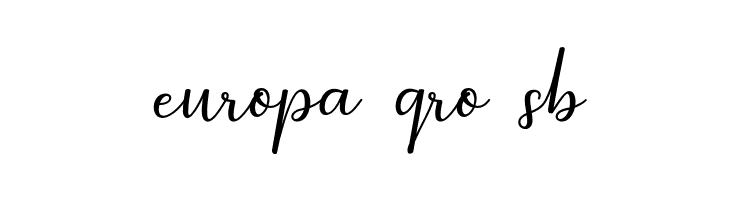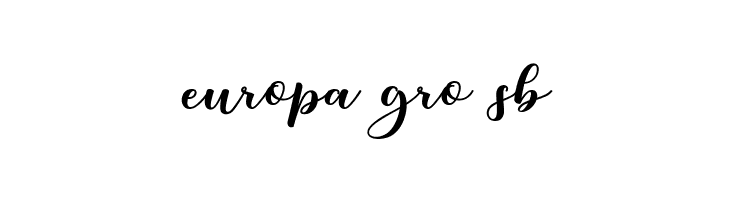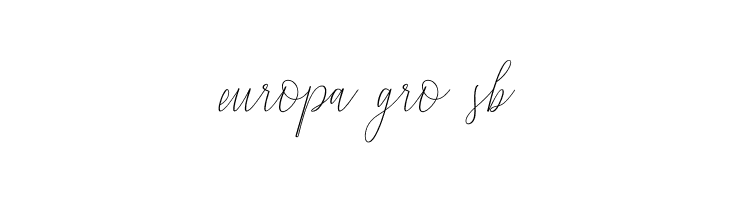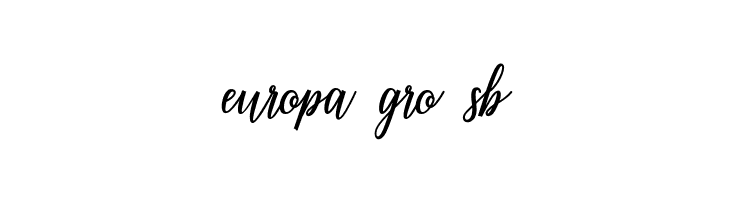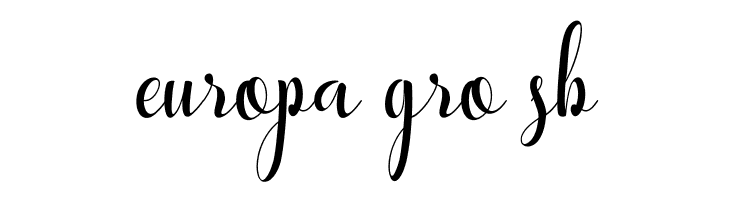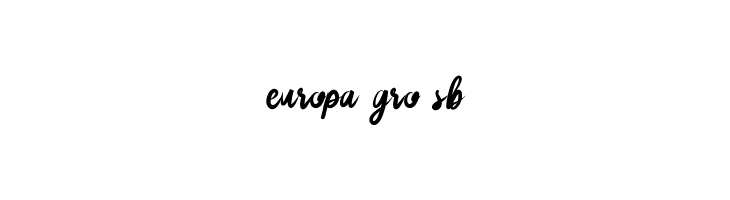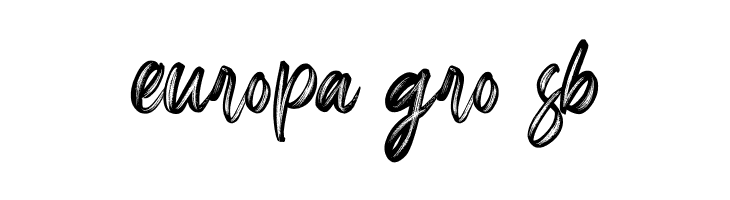
A cursive, handwritten-style font with elegant loops and swirls.
An elegant script font with flowing, cursive letterforms and sophisticated style.
A modern, elegant script font with graceful curves and fluid connections.
An elegant and sophisticated cursive script with decorative flourishes.
A playful and elegant script font with flowing, cursive design.
An elegant script font with intricate, flowing lines and decorative swirls.
An elegant script font with flowing, cursive letters and a classic style.
An elegant, flowing script font with smooth, cursive strokes.
A graceful script font with fluid, cursive strokes and elegant flourishes.
A bold, expressive font with a hand-drawn, brush-like style.